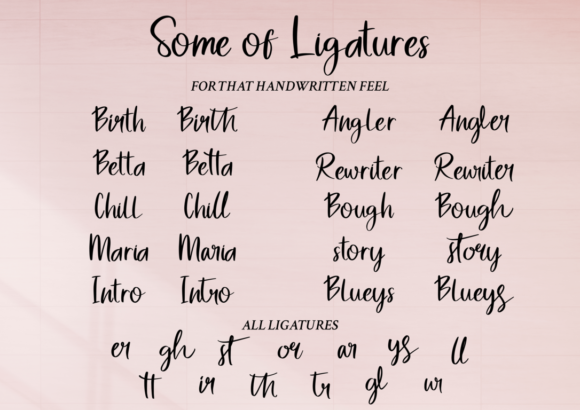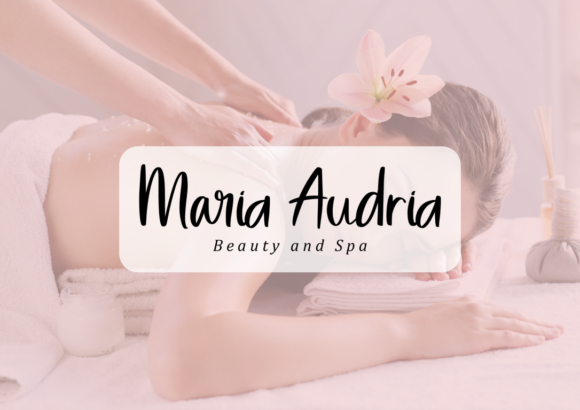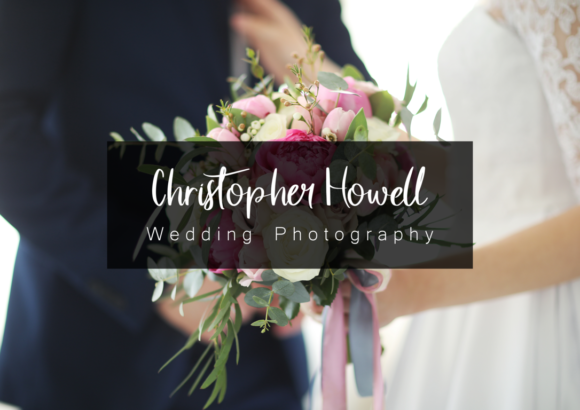
The Elusive Perfect Font: My Journey with Both Bottle
I’ll never forget the frustration of working on a design project, hours spent crafting the perfect layout, only to realize that the font I was using just wasn’t cutting it. The client wanted something elegant, something classy, and I was stuck with a font that screamed “amateur hour.” That’s when I stumbled upon Both Bottle, a lovely and delicate script font that exudes elegance and class. In this article, I’ll share my experience with Both Bottle, its features, and how to make the most of it in your designs.
A First Impression: What I Love About Both Bottle
Both Bottle is a beautifully crafted font that checks all the right boxes for designers, crafters, and creative hobbyists looking for a touch of sophistication. Here are some of the things I love about it:
• ✨ Elegant and delicate script style that’s perfect for wedding invitations, branding, and more
• 💫 Beautifully designed swashes and flourishes to add a touch of whimsy
• 📚 Extensive character set, including support for multiple languages
The Not-So-Perfect: A Few Quirks
No font is perfect, and Both Bottle is no exception. Here are a few things to keep in mind:
• 🤔 Limited availability of certain characters, such as ligatures and stylistic alternates
• ⚠️ May not be the best choice for body text, as it can be a bit too ornate
The Story Behind Both Bottle: Designer Inspiration
The story behind Both Bottle is one of passion and dedication. According to its designer, Both Bottle was crafted with the goal of creating a font that would evoke a sense of elegance and sophistication. The designer drew inspiration from classic script fonts, but with a modern twist. The result is a font that’s both timeless and trendy.
What is the best use for Both Bottle? Both Bottle is perfect for designs that require a touch of elegance and sophistication, such as wedding invitations, branding, and more.
Is Both Bottle suitable for body text? No, Both Bottle is best used for headings and titles. It’s a bit too ornate for body text.
Does Both Bottle support multiple languages? Yes, Both Bottle has an extensive character set that supports multiple languages.